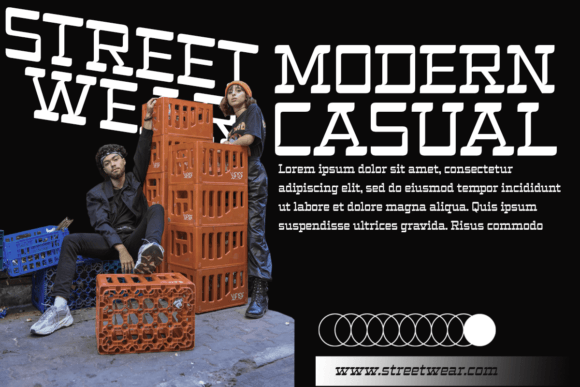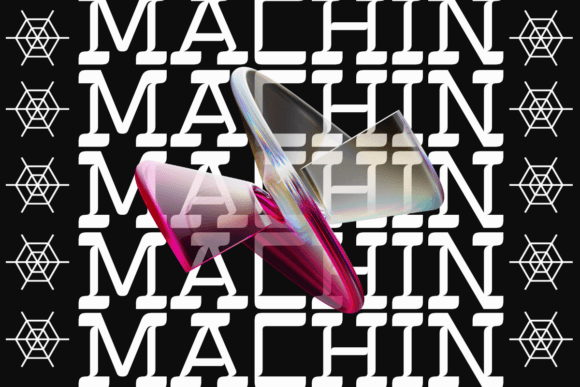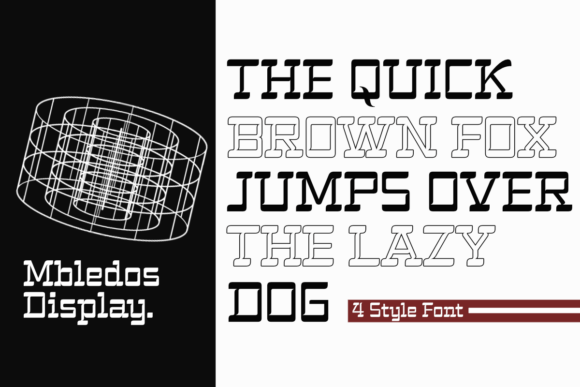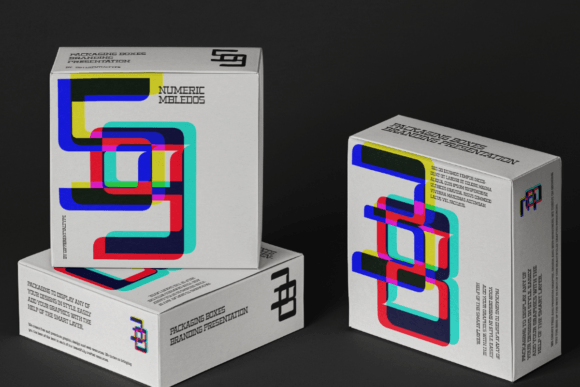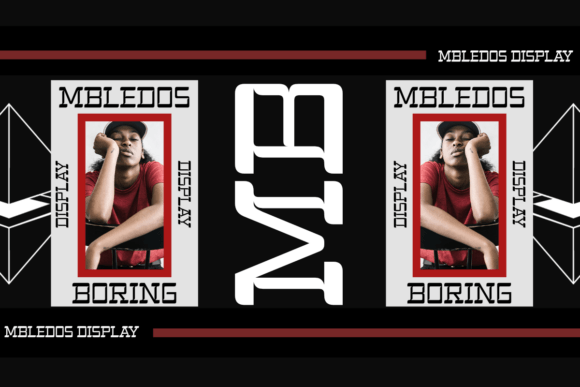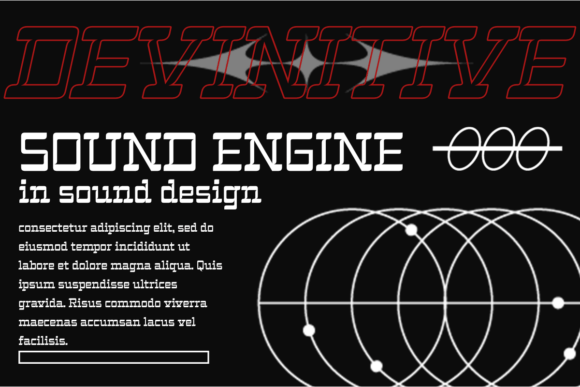
Unveiling the Mbledos Font
Remember that moment when you stumbled upon the perfect font for your project, and everything just clicked? It’s like finding a missing piece of a puzzle that brings your design to life. For designers, discovering a font that captures the essence of their creative vision can be a game-changer. The Mbledos Font is one such discovery that promises to elevate your designs and leave a lasting impression.
This striking display font is more than just a design resource – it’s a high-quality addition to your toolkit that can breathe new life into your projects. With its four distinct styles, including regular, outline, and a chic italic variation, the Mbledos Font offers unparalleled versatility. Whether you’re working on a high-profile project or a personal creative endeavor, this font’s unique charm is sure to make your designs stand out.
Key Features of Mbledos Font
- High-quality design resource perfect for creative projects, including graphic design, digital art, and more.
- Features a transparent background, making it easy to layer over complex designs without losing any detail or visual interest.
- Includes a range of characters, including uppercase and lowercase letters, numbers, and punctuation, to support a wide range of languages and creative expressions.
- Designed with a modern aesthetic, Mbledos Font is ideal for projects requiring a sleek, contemporary look and feel.
- Perfect for designers, artists, and creatives seeking a high-quality, versatile font for their next project.
Honest Review: Mbledos Font
As a designer, I’m always on the lookout for high-quality design resources to elevate my creative projects. Recently, I stumbled upon the Mbledos Font, and I’m excited to share my honest review with you.
What works well: ✨ The Mbledos Font is incredibly versatile, making it perfect for a wide range of design projects. Its modern and sleek design is sure to add a touch of sophistication to any layout. I also appreciate the transparent background option, which allows for seamless integration into any design.
What doesn’t work well: ⚠️ The font is not available in as many languages as I would have liked, which might be a limitation for some designers. Additionally, the font family is relatively small, which might not be suitable for projects requiring multiple font styles.
Overall impression: I’m thoroughly impressed with the Mbledos Font. Its high-quality design, versatility, and free download option make it an excellent addition to any designer’s toolkit. While it may have some limitations, I believe it’s a fantastic resource for any creative project.
Tips for Getting the Most Out of Mbledos Font
For a high-quality design, use the Mbledos Font with a transparent background to create a clean and modern look. Experiment with different font sizes and styles to find the perfect fit for your creative project.
The Mbledos Font is perfect for creating eye-catching graphics, logos, and titles. It’s also great for use in presentations, documents, and social media posts. With its high-quality design and free download, it’s a valuable design resource for any creative project.